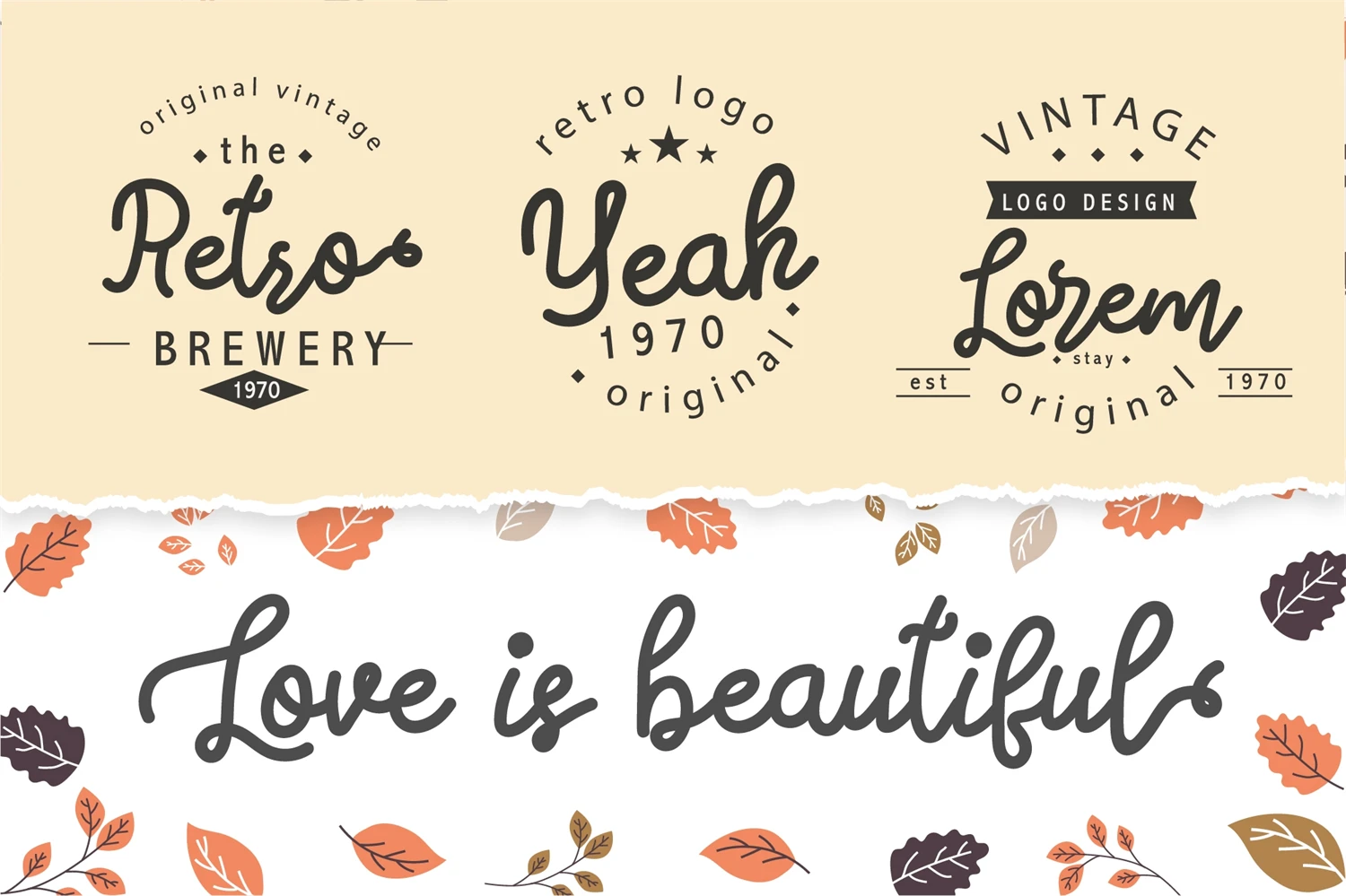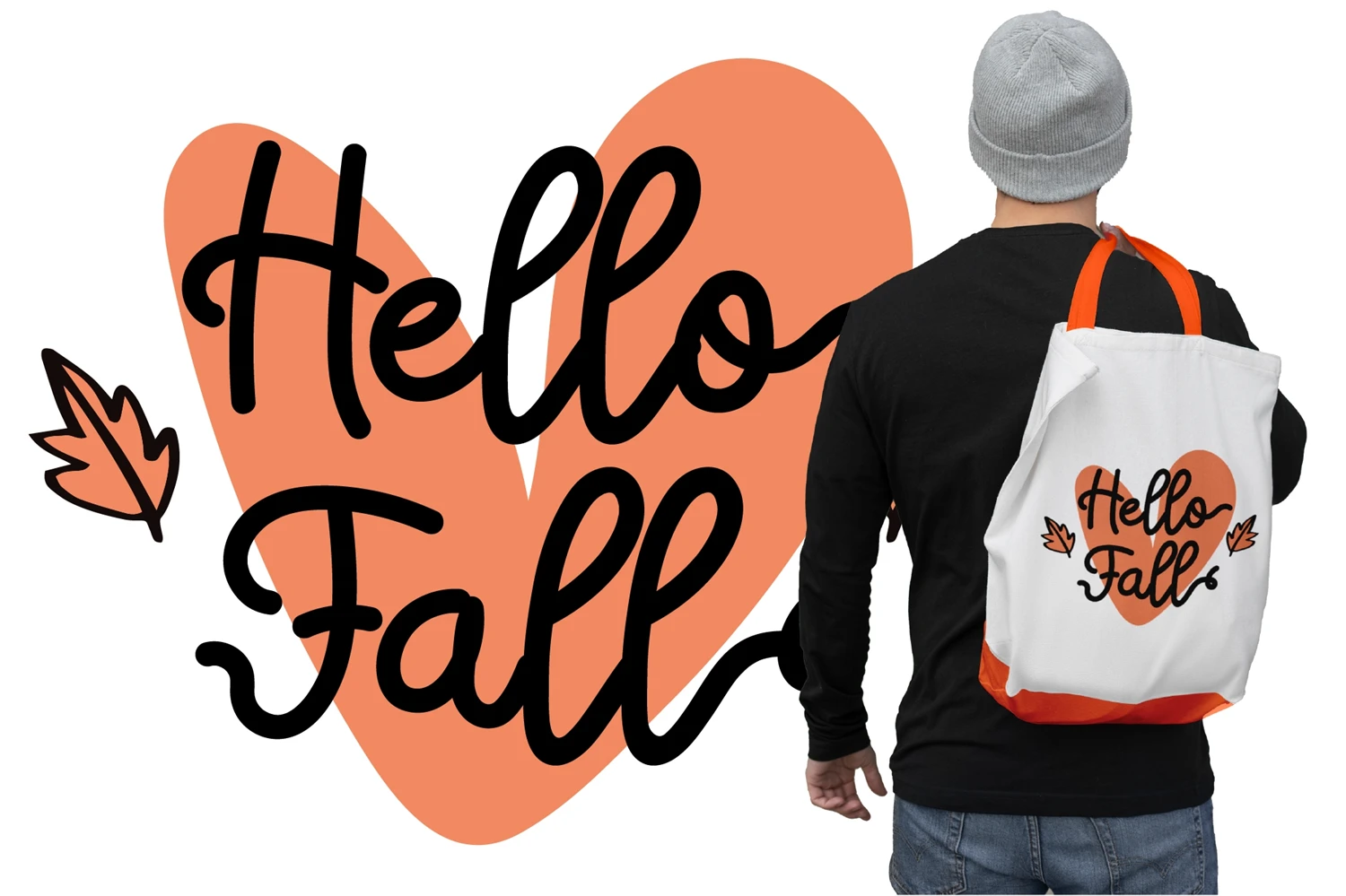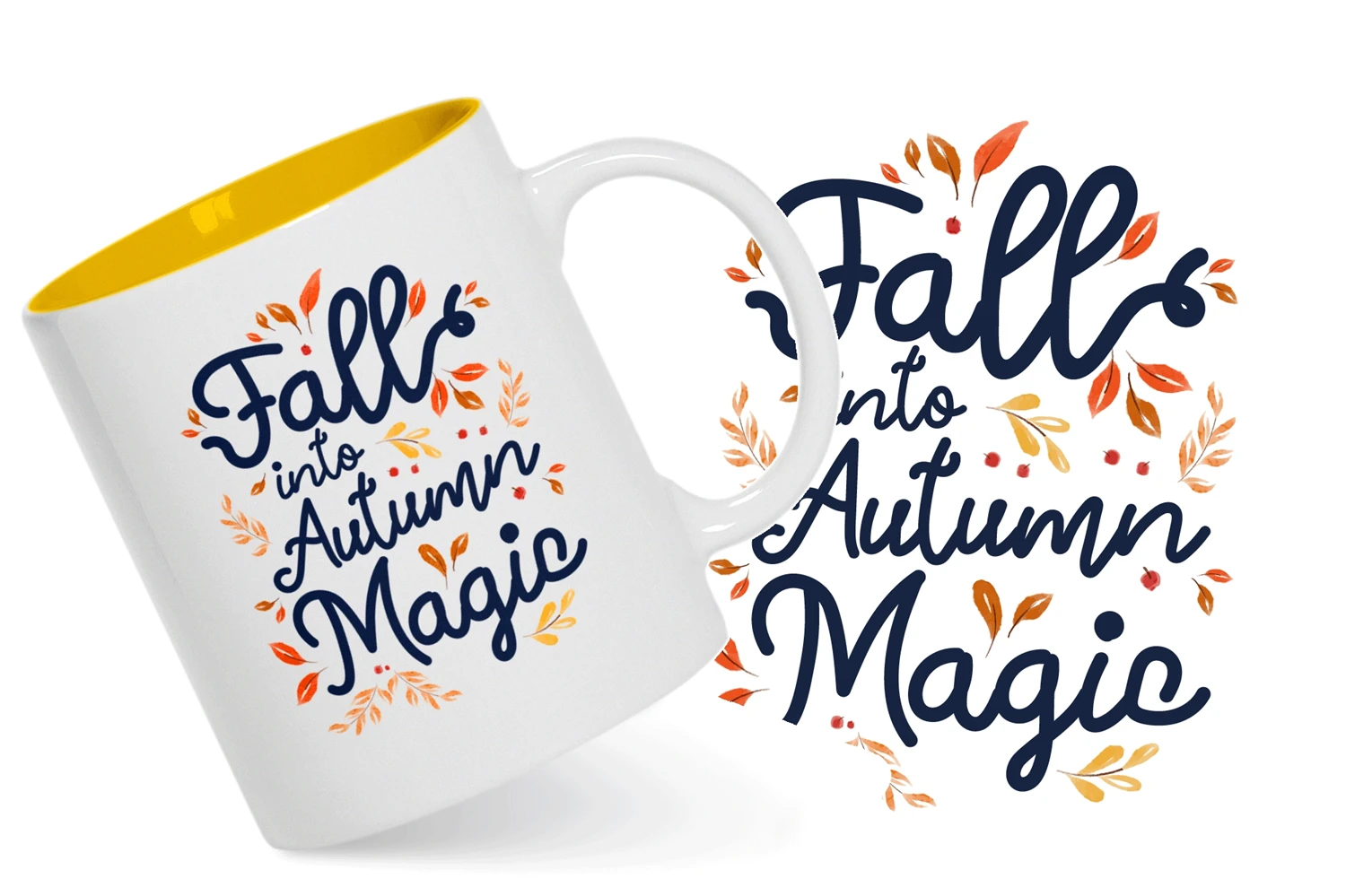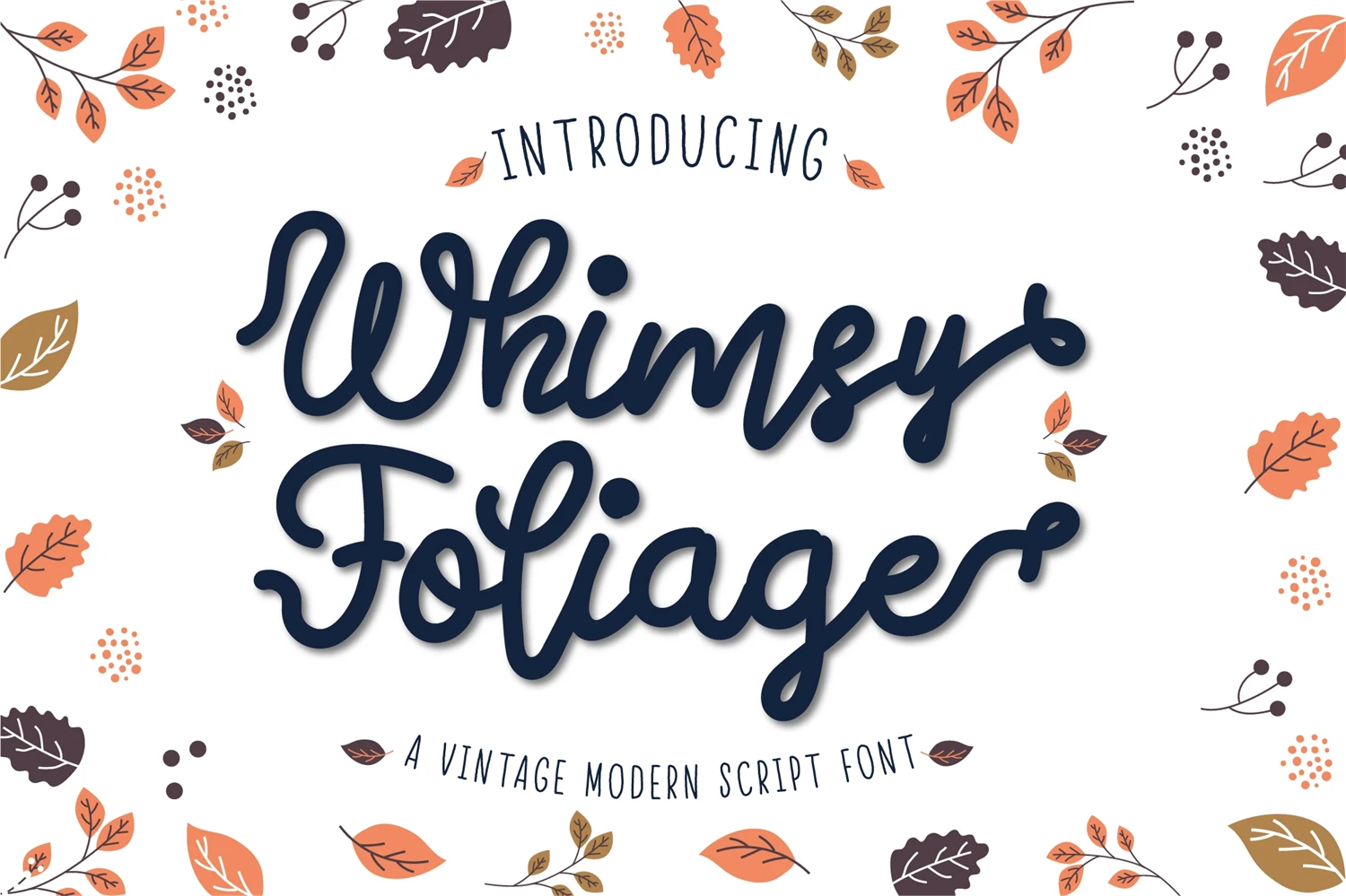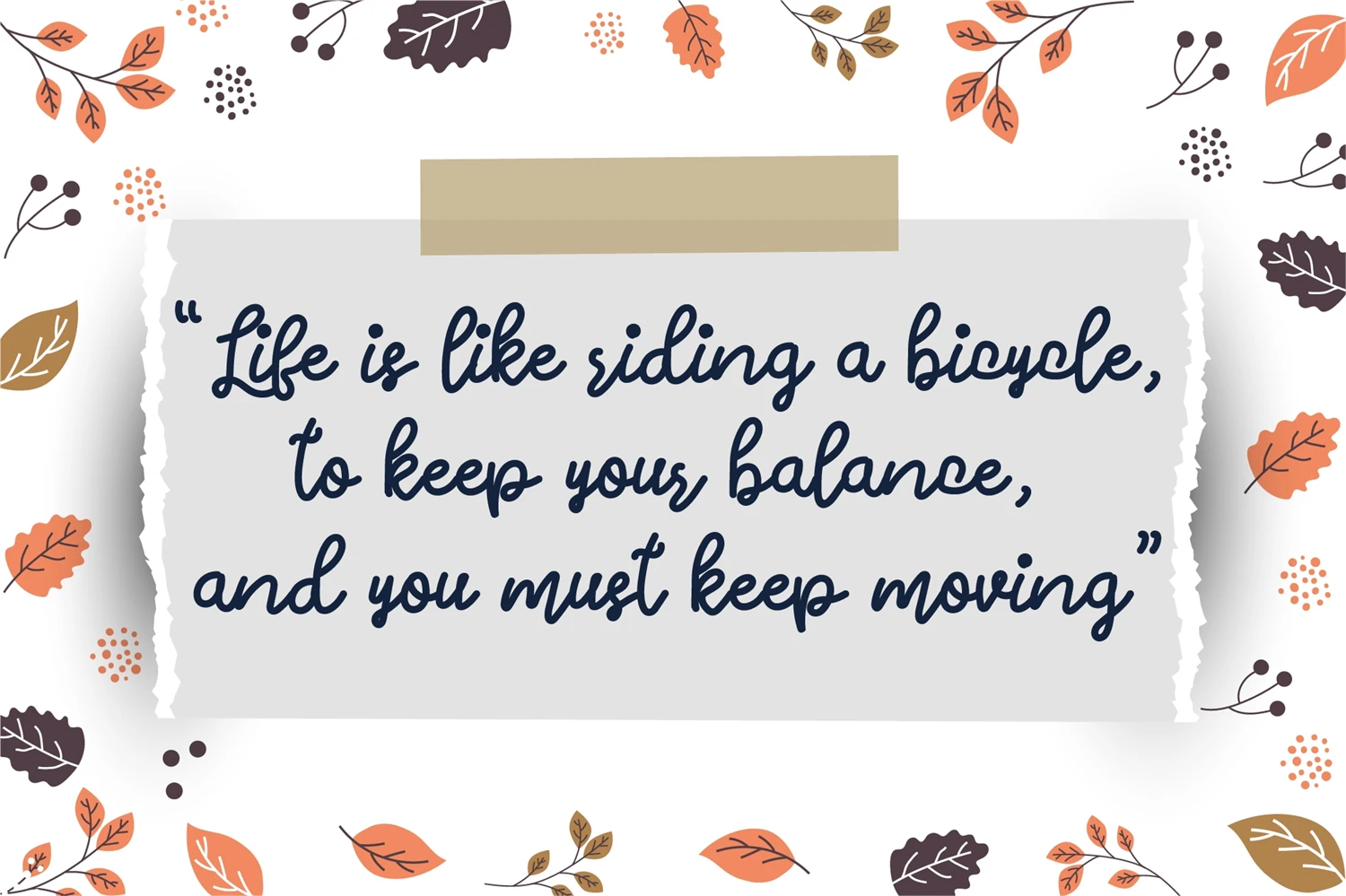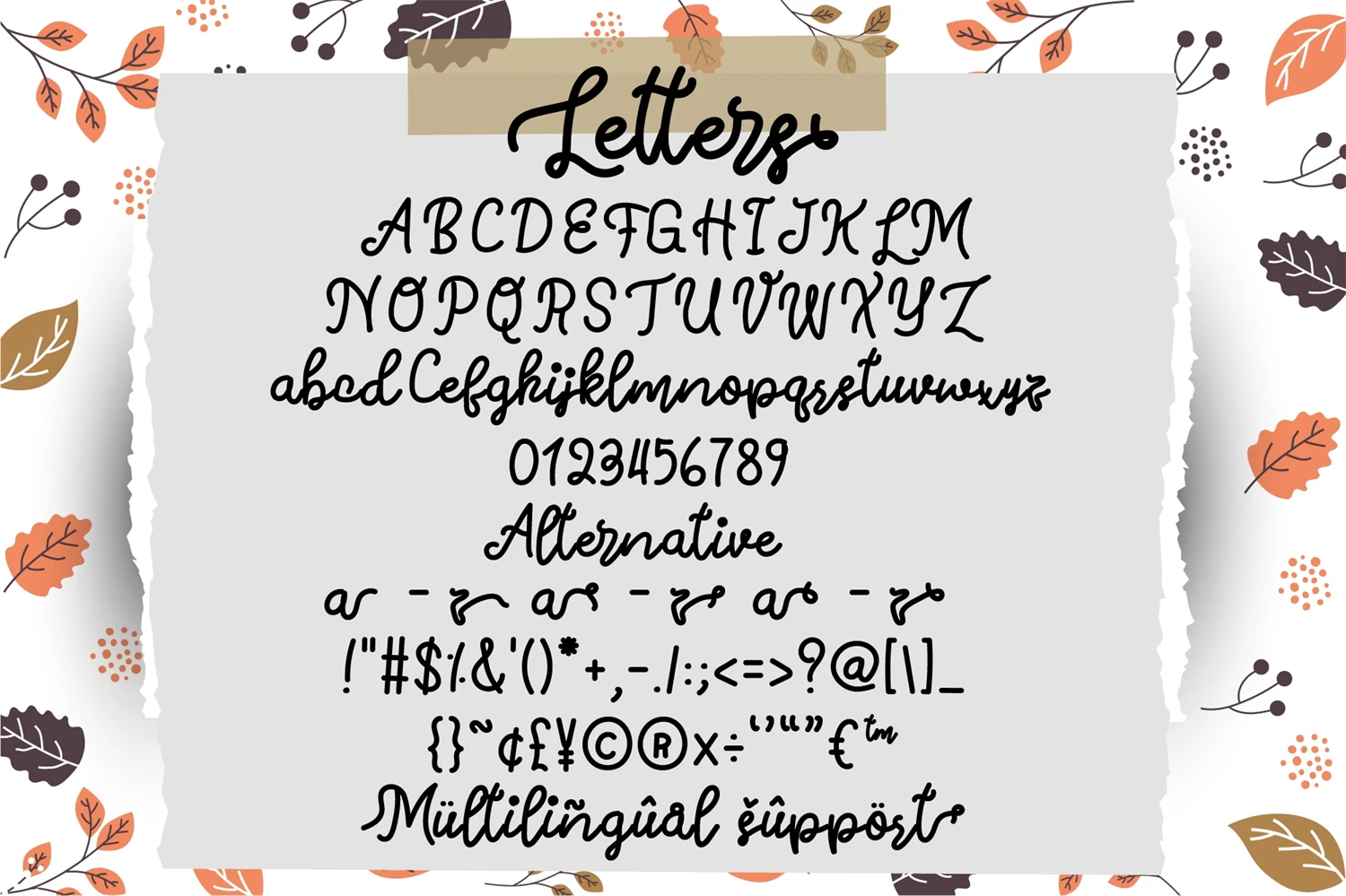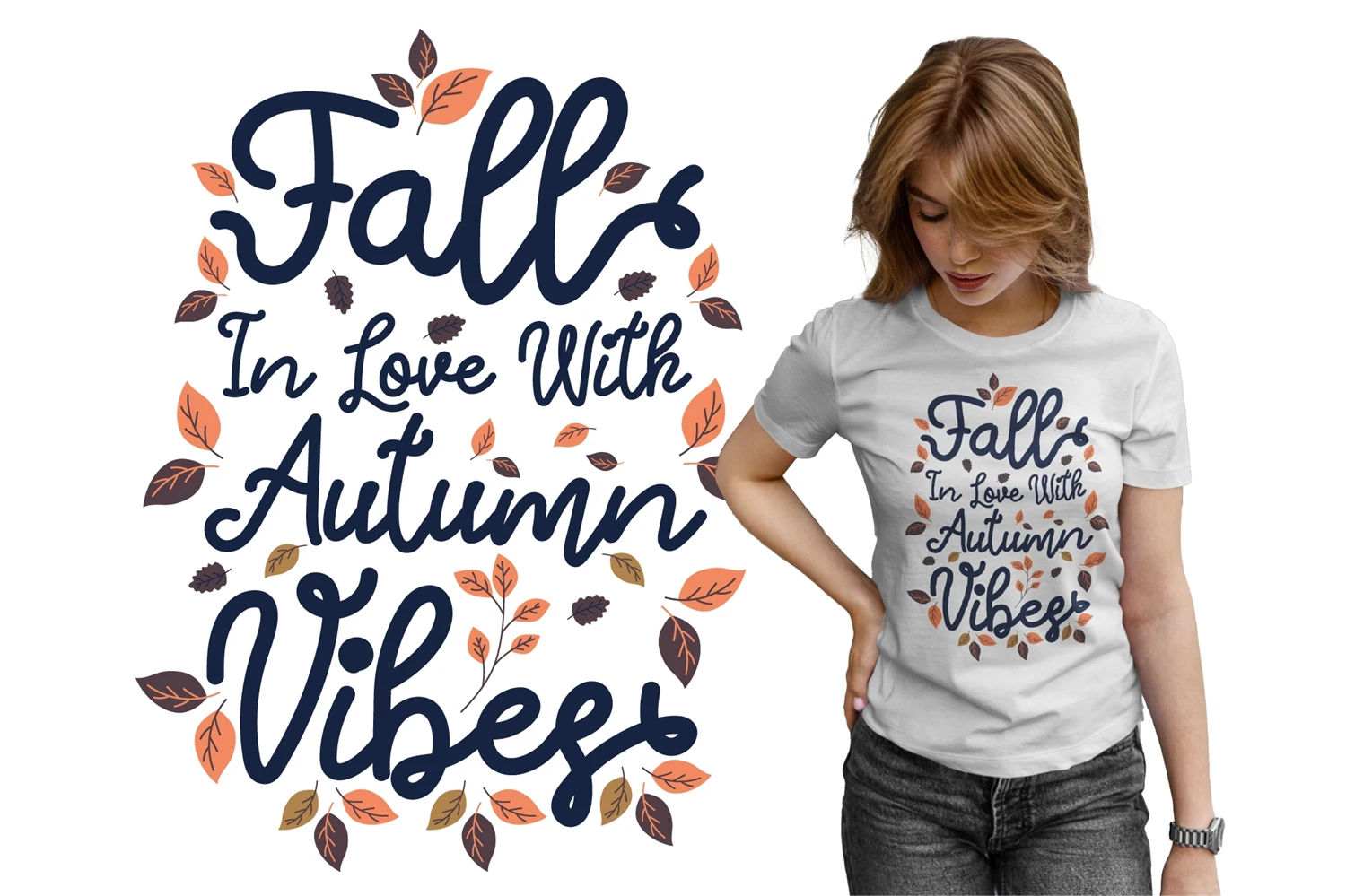
Whimsy Foliage is a delightful script font that combines a cute retro style with the whimsical beauty of foliage. This font exudes a playful charm, reminiscent of vintage lettering with a modern twist. Each letter is meticulously crafted, capturing the essence of hand-drawn strokes and intricate details. The fusion of whimsy and foliage brings a touch of natures magic to your designs, making it perfect for invitations, greeting cards, logos, branding, and more. Let the whimsical foliage of this font add a unique and enchanting element to your creative projects.